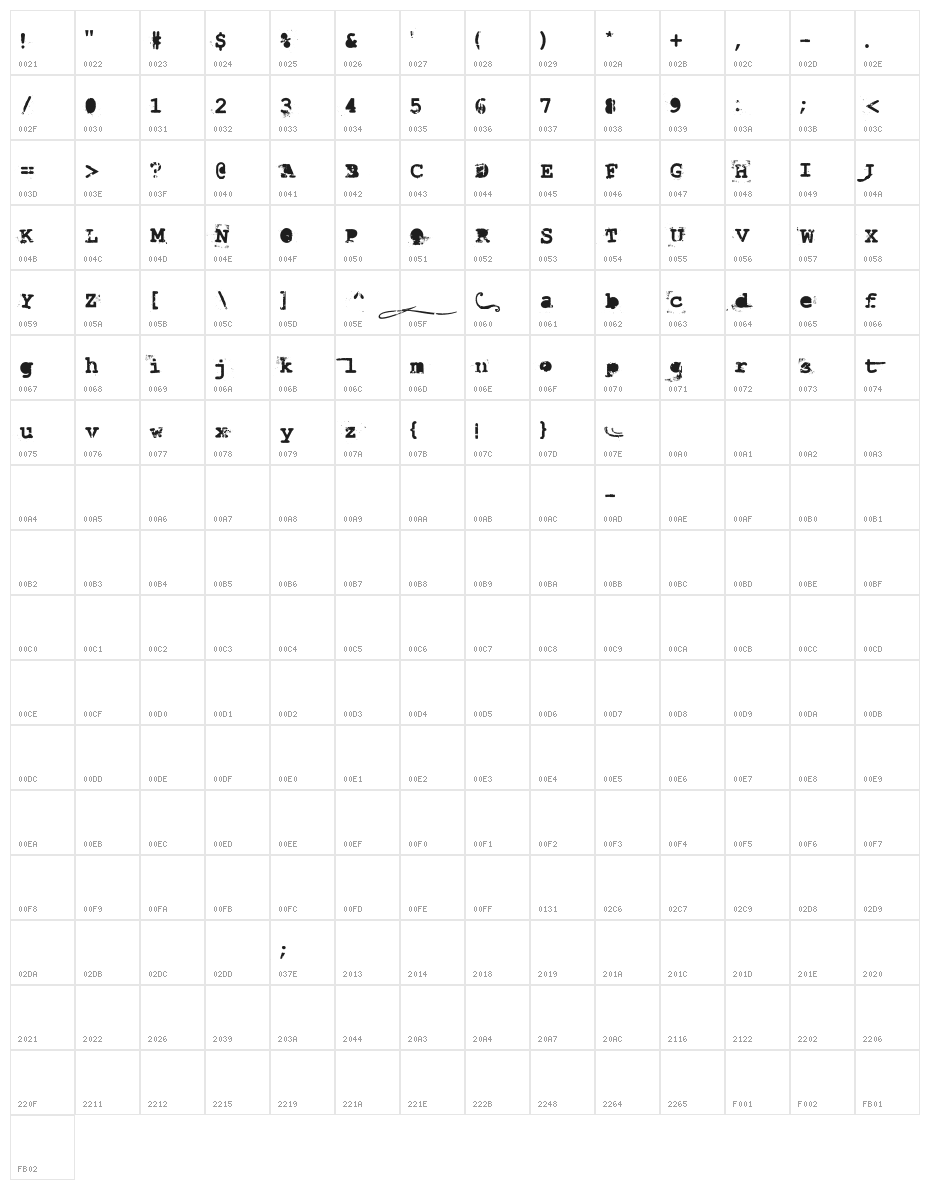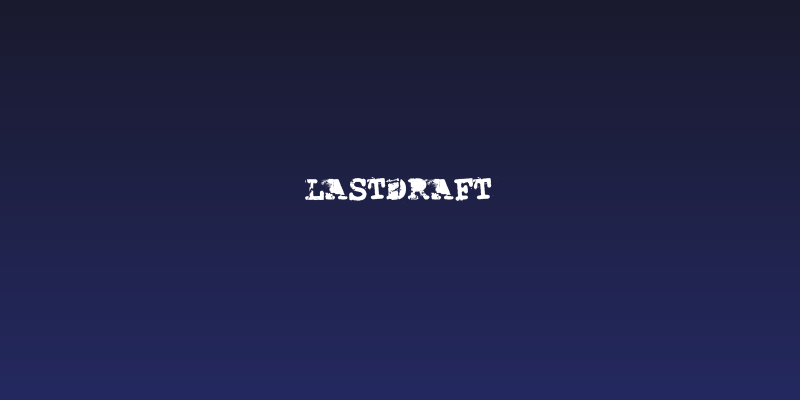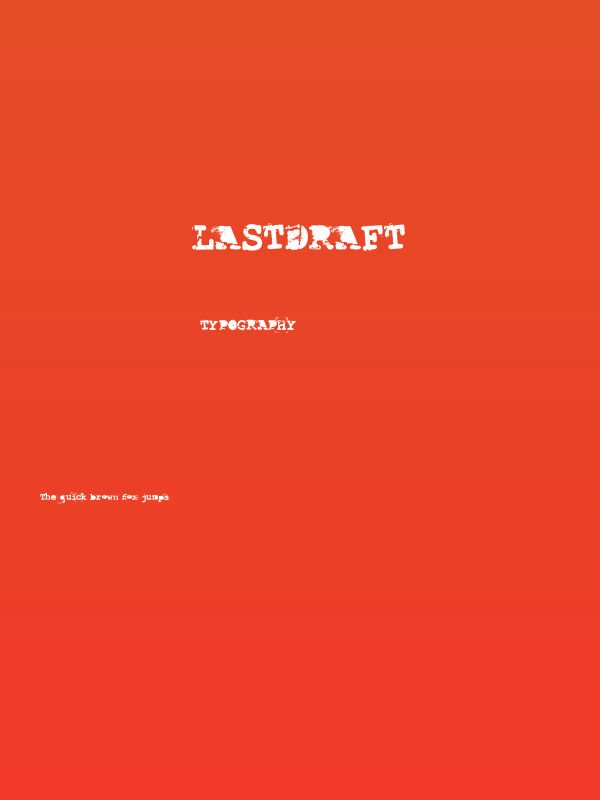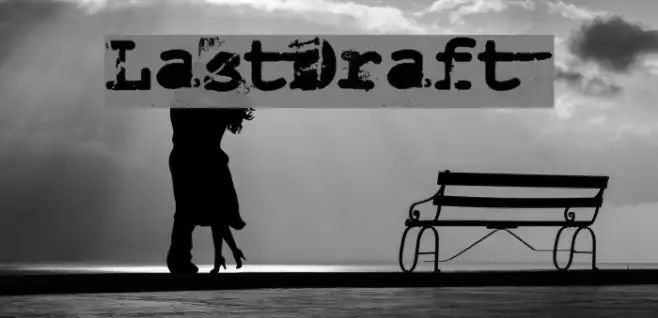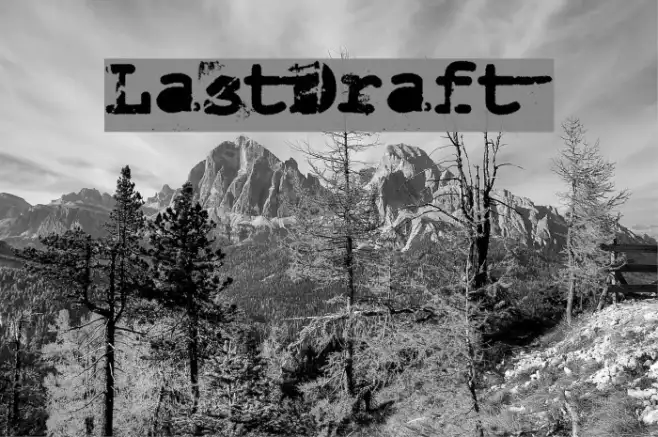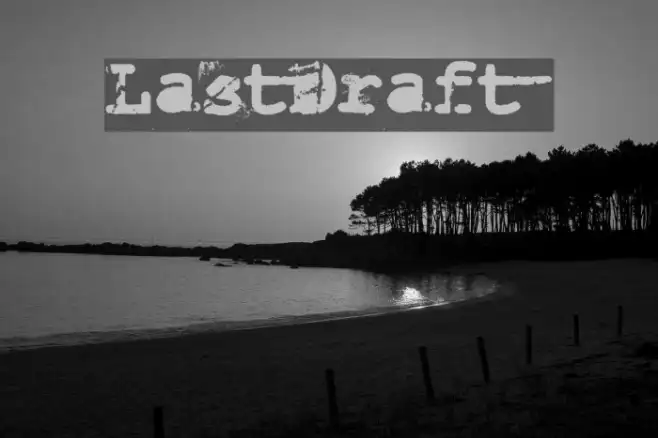
LastDraft Font
LastDraft Description
This font features a distressed, grunge style with a bold, impactful presence. The characters are heavily textured, giving them a worn, vintage appearance reminiscent of typewriter or stamped text. The uppercase and lowercase letters maintain a consistent width, while the numbers and special characters follow the same rugged aesthetic. The font's rough edges and uneven ink distribution create a dynamic and eye-catching look, perfect for designs that require a bold statement or an edgy, urban feel.
| Overall Style | Vintage, Grunge |
| Proposed Projects | Ideal for poster designs, album covers, urban-themed branding, or any project needing a bold, gritty aesthetic. |